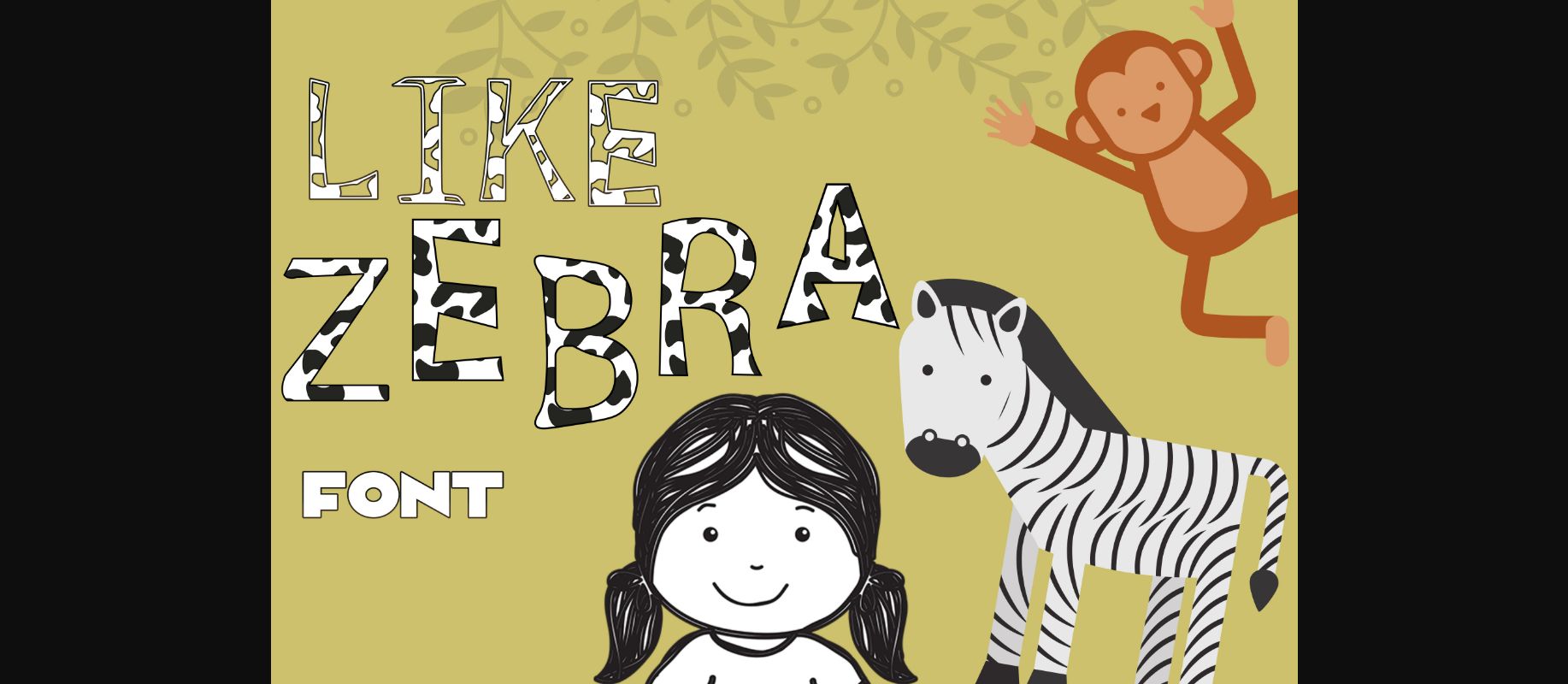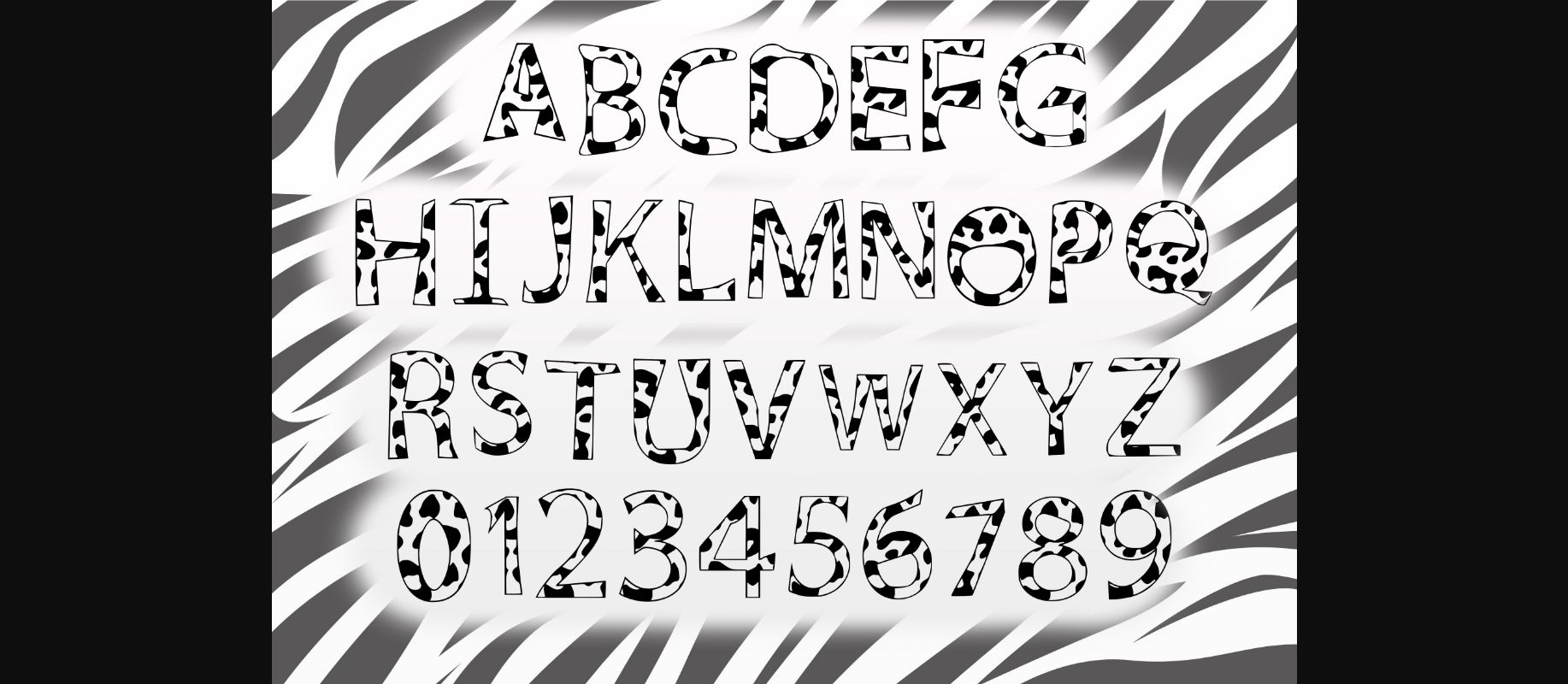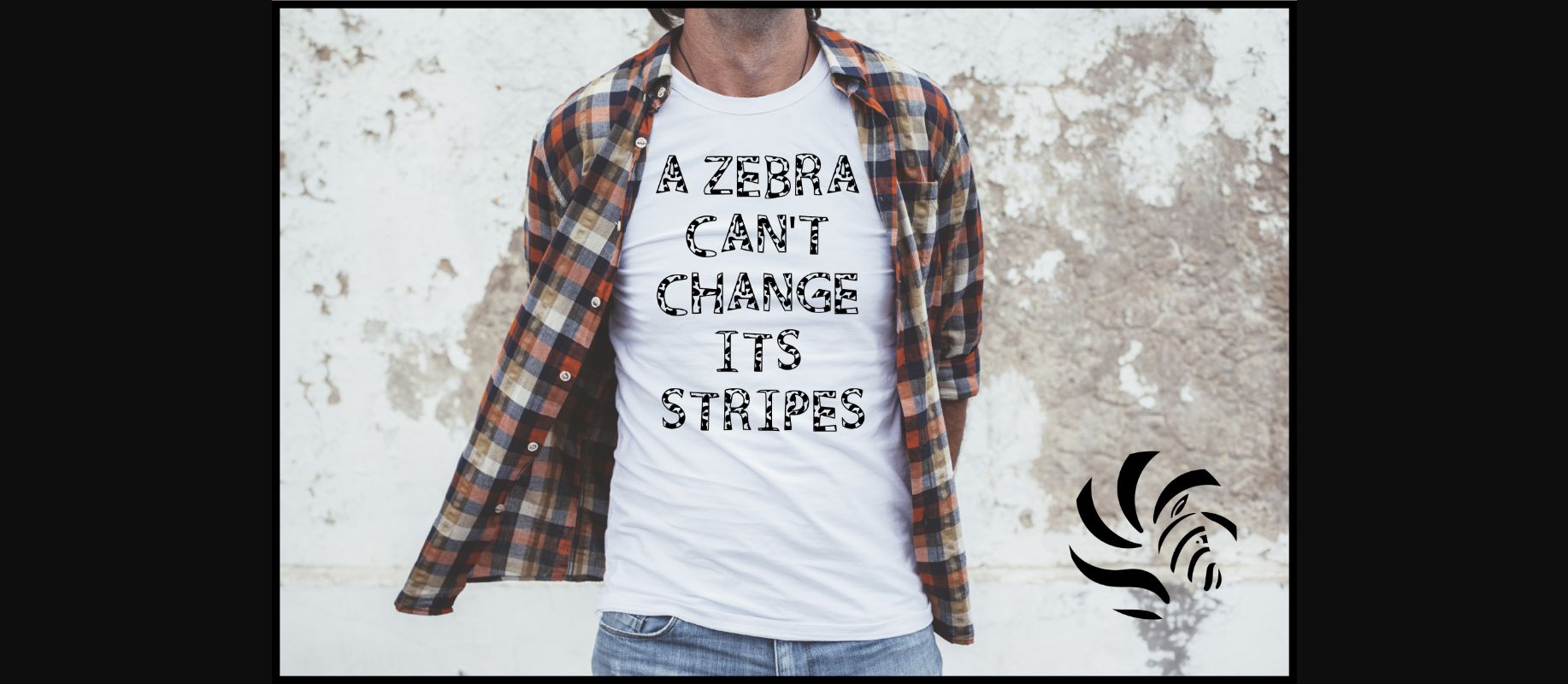
Like Zebra Font
About Like Zebra Font
Like Zebra is a cool, playful and unique decorative font. It embodies joy and authenticity and is the perfect choice for any children activity or school project.